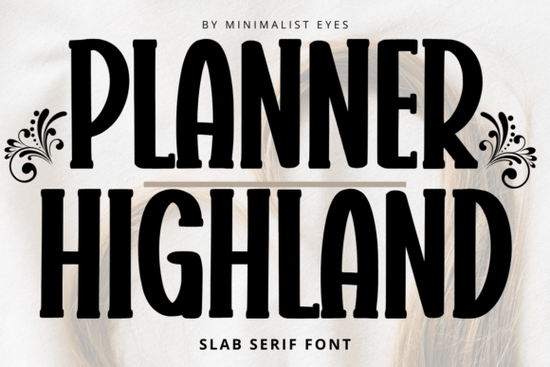
Looking for a font that feels both warm and clear? Planner Highland is a modern slab serif typeface with a friendly, approachable vibe perfect if you're designing something that should feel personal, inviting, or just a little playful. Whether you're working on children’s books, party invitations, branding materials, or printable planners, this font brings a sweet, handcrafted charm without sacrificing readability.
What makes Planner Highland stand out?
Unlike stiff or overly formal slab serifs, Planner Highland has soft curves and rounded edges that give it a gentle, almost handwritten quality. It’s not too bold, not too light it sits comfortably in the middle, making it ideal for both headings and body text. The consistent stroke width and balanced spacing mean it works well in print and digital formats alike.
You’ll notice how the lowercase letters have a subtle lift, adding a touch of whimsy without tipping into cartoonish territory. That balance is key it keeps your designs professional while still feeling welcoming. If you’ve ever wanted to add personality to a logo or stationery set without overwhelming the message, this font delivers.
Where can you use Planner Highland?
- Children’s books and storybooks – its cheerful tone fits perfectly with illustrated pages and simple narratives.
- Invitations and greeting cards – whether it’s a birthday, baby shower, or wedding, the font adds warmth.
- Branding for small businesses – think boutiques, cafes, or handmade goods where a personal touch matters.
- Print-on-demand products – great for mugs, notebooks, wall art, and stickers with a cozy aesthetic.
- Planners and journals – especially useful if you’re creating themed layouts or daily prompts.
It pairs well with clean sans-serif fonts for contrast, but also stands alone beautifully when you want a single, expressive type style.
How does it compare to other slab serif fonts?
If you’ve explored similar fonts like Typedeer Mono or others in the slab serif family, you’ll appreciate how Planner Highland leans more toward friendliness than formality. While Typedeer Mono offers a crisp, minimalist look (great for tech or minimal branding), Planner Highland brings something different a sense of comfort and charm. It’s less about precision and more about connection.
For those who enjoy fonts with character but don’t want them to dominate the design, this one hits the sweet spot. You’re not sacrificing clarity for fun; instead, you get both.
Why designers are choosing this font
Many creatives appreciate that Planner Highland is easy to work with. It includes a full range of weights and styles, so you can adjust contrast and emphasis without switching fonts. The kerning is well-balanced, and the OpenType features support ligatures and alternate characters, giving you small creative options without extra effort.
Final thoughts: Is Planner Highland right for your next project?
If you’re aiming for designs that feel human, thoughtful, and slightly playful without losing professionalism this font is a strong choice. It’s not flashy, but it leaves a lasting impression through consistency and warmth.
Try it on a mock-up for a birthday invite, a product label, or a planner cover. See how it changes the mood of your layout. Chances are, you’ll find yourself reaching for it again and again.